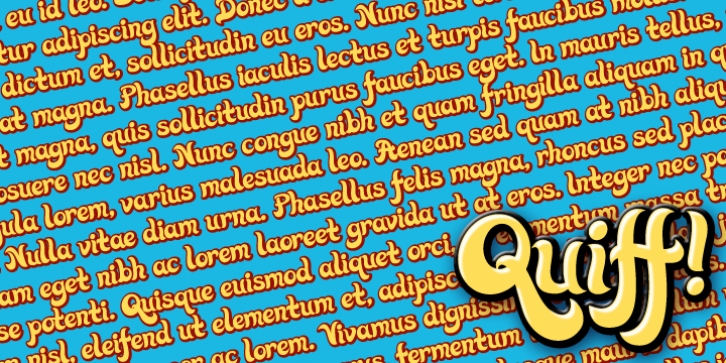
Quiff downloadDesigner: Dave Rowland
Publisher: Schizotype
Quiff is a laid back surf style font with a hand drawn feel. There are loads of ligatures, and alternate forms of s, c, y, g, j and & characters.
Quiff works best in bright colors and looks particulary good with a big fat drop shadow. Use it for beachside cafes, surf shacks, disco flyers and psychadelic musings.